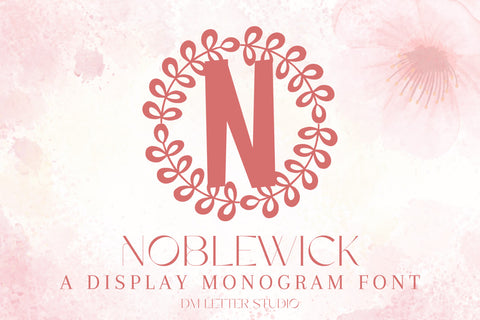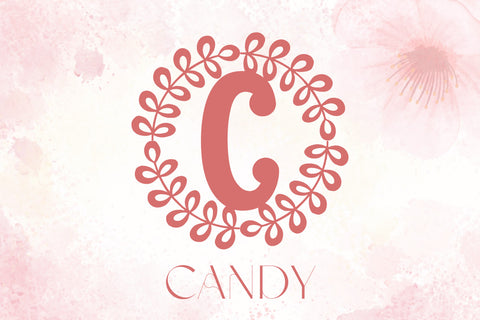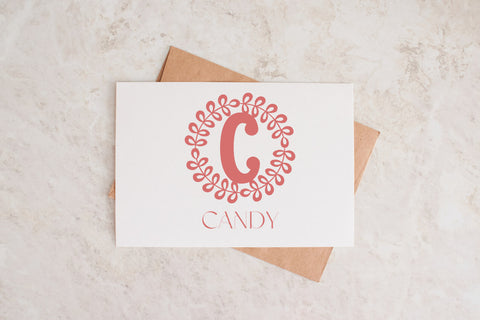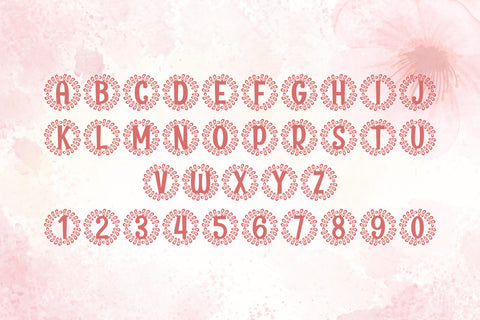
Noblewick Monogram Font
Meet Noblewick, the Monogram Font
Noblewick Monogram Font turns simple initials into poised, heirloom-ready emblems. Lines feel smooth and confident, while generous counters keep tiny tags readable and thumbnails crisp. Use it across wedding suites, boutique logos, keepsake gifts, foil seals, and premium packaging. In addition, Noblewick pairs beautifully with refined serifs and quiet humanist sans fonts, so layouts look elegant without extra effort.
Where this monogram font shines
Set single, double, or triple initials for logos, seals, menus, and place cards. Then frame them with laurel rings, ovals, rope circles, or fine rules to echo Noblewick’s balanced geometry. Since proportions favor symmetry and clear spacing, centered compositions come together in minutes. As a result, your listings stay consistent from invitations to signage, and the mark scales smoothly from jewelry cards to entry displays.
Design tips for Noblewick Monogram
Keep initials large and let white space breathe. Pair the hero monogram with a soft serif for body text or a clean sans for dates and labels. Add micro shadows, a fine inner stroke, or a delicate frame for depth. Because the forms are airy and refined, textured papers and metallic accents raise perceived value. However, keep wording short so the monogram remains the hero on small favors and wax seals.
Select stylistic alternates for key letters
Curves tuned for foil, letterpress, engraving, laser cutting, and clean vinyl paths
Why creators choose Noblewick
You want elegance that reads at a glance and sells across many product types. Then, Noblewick Monogram Font delivers steady clarity, quick layout, and a cohesive brand voice from invites to packaging and gifts.